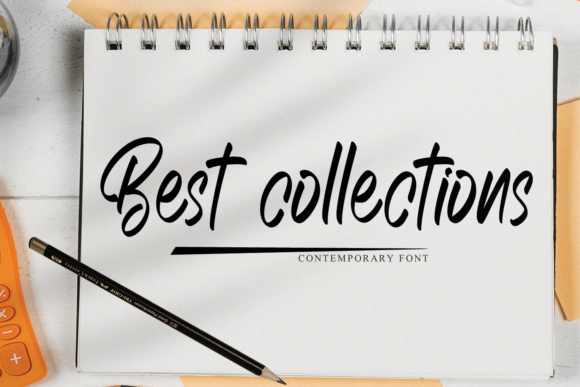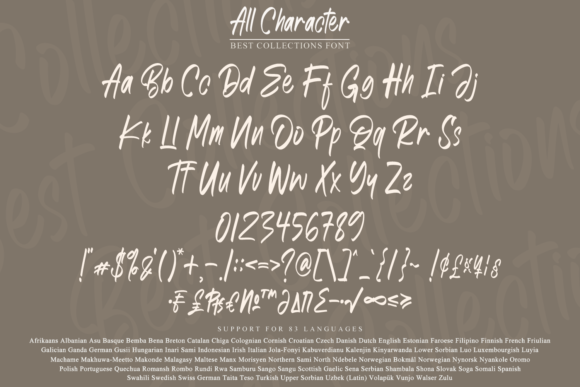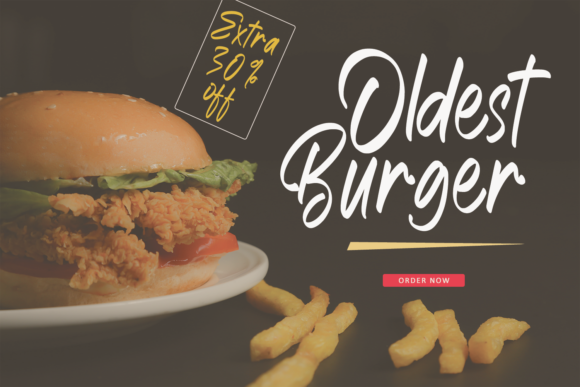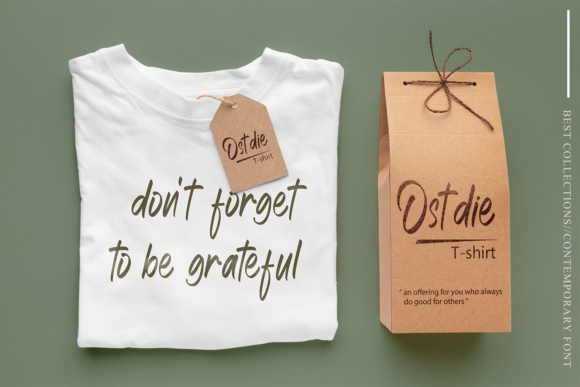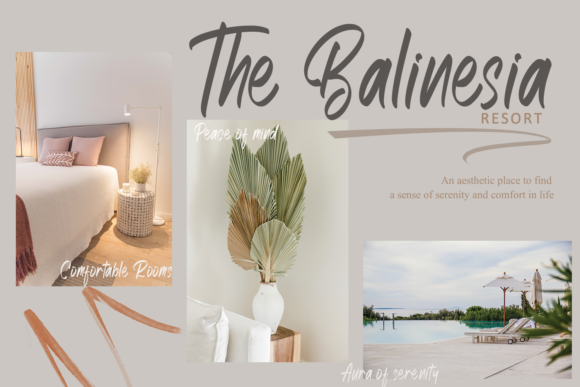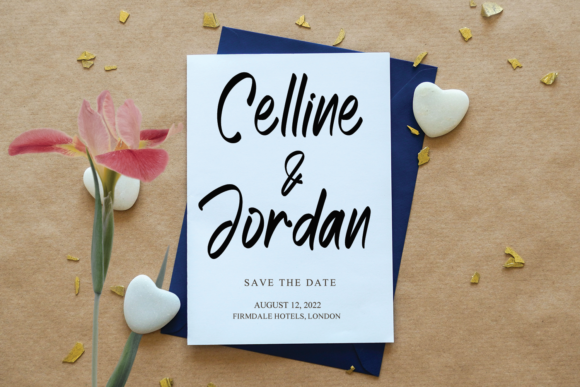
About Best Collections Font
“Best Collections” is a font that exudes a thin and flowing aesthetic. Its lettering possesses a delicate quality that gracefully flows, creating an elegant and captivating style. This font’s charm lies in its ability to evoke a sense of beauty and sophistication, making it an excellent choice for a range of creative applications.
The font’s appeal is particularly evident in its potential to enhance various design projects. From creating exquisite wedding invitations that embody romance, to crafting stunning stationary art that captures attention, to producing eye-catching social media posts that stand out—this font seamlessly adapts to different contexts and elevates your creative endeavors.
As you explore the potential of “Best Collections,” you’ll come to appreciate its ravishing style. Its flowing design adds a touch of grace to your creations, infusing them with an air of refinement.
In essence, “Best Collections” is more than just a font; it’s a catalyst for creating visually appealing and captivating designs. Its thin lettering and flowing nature enhance the elegance of your projects, making them visually striking and memorable. With “Best Collections,” your creative possibilities expand, and your projects become expressions of style and allure that resonate with viewers.